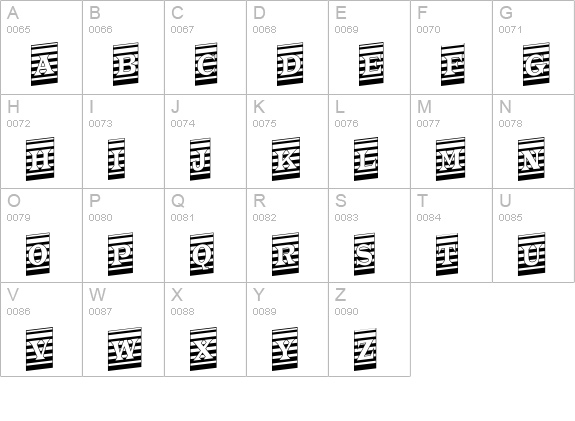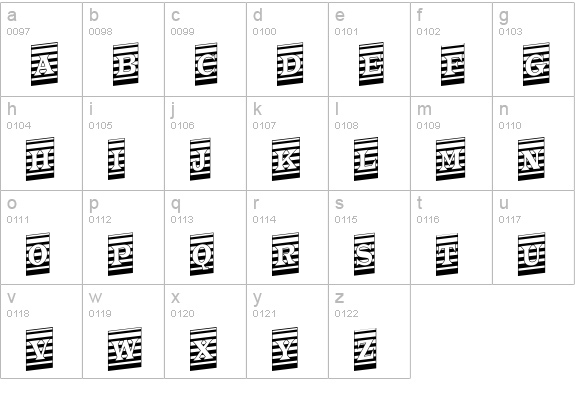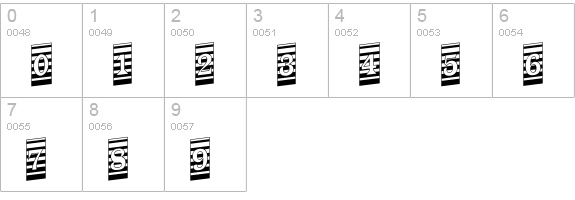
a_TrianglerCmMrUp Font Details
Introducing TrianglerCmMrUp Font, a captivating and modern typeface that adds a touch of sophistication to any design project. With its sleek lines and geometric shapes, this font exudes a sense of elegance and style. Whether you're creating a logo, branding materials, or website design, TrianglerCmMrUp Font is sure to make a bold statement. The best part? This font is available for free download at FontsMarket.com, making it accessible to designers and creatives looking to elevate their work without breaking the bank. Don't miss out on the opportunity to enhance your projects with the unique charm and versatility of TrianglerCmMrUp Font. Download it today and see the difference it can make in your designs!